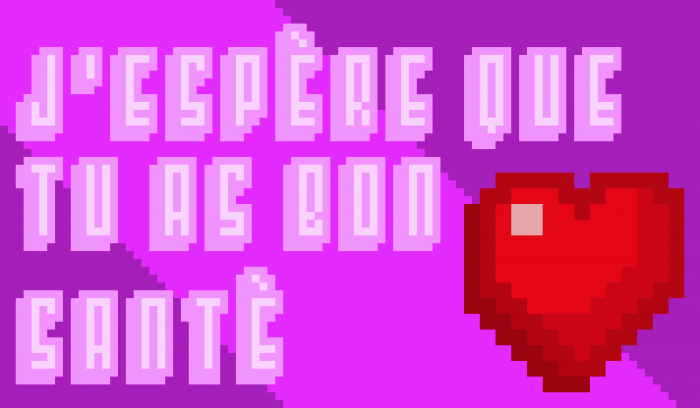
Congratulations! FontStruct Staff have deemed your FontStruction worthy of special mention. “i hope you have good health” is now a Top Pick.
Congratulations on the TP :) This has a surprising 3D look in FS pixel size text preview. I think it's great for small point texts. 10/10